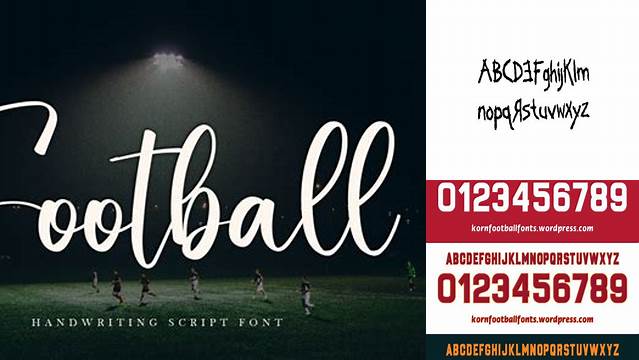
Download Korn Football Fonts: Top Picks & Tips
Hey everyone! If you're on the hunt for the perfect Korn football fonts to spice up your designs, you've come to the right place. Finding the right font can seriously make or break a project, right? Whether you're a graphic design guru, a passionate football fan crafting social media posts, or just someone wanting to create some awesome custom merchandise, the font you choose can be the difference between something good and something unforgettable. So, let's dive into the world of Korn football fonts, explore the best options, and get you on your way to creating something truly epic.
Why Korn Football Fonts Matter
Alright, so why are Korn football fonts such a big deal? Well, think about it. When you see a logo, a jersey, or even a simple graphic, the font is a massive part of what grabs your attention. It sets the tone, conveys the message, and gives your design that unique personality. Korn fonts, with their distinct look and feel, bring the spirit of the gridiron to life. They often have a bold, strong presence, reflecting the strength, power, and intensity of the game itself.
Selecting the right font isn't just about picking something that looks cool; it's about telling a story. It's about communicating the essence of football, the history, and the excitement. A well-chosen font can instantly evoke feelings of competition, teamwork, and the thrill of victory. If you're designing for a team, the right font can build camaraderie and reinforce their brand identity. If you're just making fan art, it shows your passion. The best Korn football fonts are easily readable, versatile enough for different applications (like websites, posters, and apparel), and, most importantly, they resonate with the spirit of the sport. Using the right fonts can significantly boost the memorability and professional appearance of your design work. It's like the difference between wearing a generic t-shirt versus a custom jersey that looks fantastic and has a unique appeal!
Top Korn Football Fonts to Download
Now, the moment you've been waiting for: a breakdown of the best Korn football fonts you can download right now. Please remember that font availability and licensing can change, so make sure you check the usage rights for each font before you start your design project. Here are some of the most popular and versatile Korn football fonts:
- Impact: Impact is a bold, heavy font that screams dominance. It's a classic in sports design, and it's perfect for headlines, team names, and any text that needs to make a statement. Its thick strokes ensure maximum visibility, even from a distance. The font's strong, sturdy character is easily associated with power and determination.
- College: College fonts often mimic the styles used by major college and professional football teams. These fonts offer a balance of classic and contemporary design elements, with a clear nod to tradition. They are frequently characterized by their readability, making them perfect for the display of scores, player names, and other detailed information. This font style typically brings a sense of familiarity and nostalgia to your design, making it popular with fans.
- Helvetica Neue: You might be surprised, but Helvetica Neue can be a great option if you want a clean, modern look that still resonates with football. Its versatility makes it suitable for everything from logos to body text, depending on the specific needs of your design. Its clarity and legibility make it an efficient option for both short and long texts.
- Bebas Neue: Bebas Neue is a modern, sans-serif font that's clean, versatile, and impactful. The font is popular for headlines and display text because it is easy to read. Bebas Neue is a solid pick for a range of football-related projects, from digital graphics to print designs. Its minimalistic design lends itself well to branding.
- American Captain: This font is a playful choice, often inspired by the lettering of old-school sports teams. Its stylistic elements can add a vintage feel to your designs. This font is perfect when you want to bring a classic and nostalgic look to your creations.
Tips for Using Korn Football Fonts Effectively
Okay, you’ve got your fonts. Now, how do you use them to create the best designs possible? Here are a few tips to help you out:
Creating Outstanding Designs with Korn Football Fonts
Alright, guys, you're now well-equipped to start creating some incredible designs with Korn football fonts. From social media posts to custom merchandise, the right fonts can help you achieve your goals. Remember to consider your audience, the message you want to convey, and the overall design aesthetic. With the right font choice and a little creativity, you can produce designs that really capture the excitement and energy of the gridiron. Don't be scared to experiment, play around with different styles, and let your creativity go wild. Have fun creating!